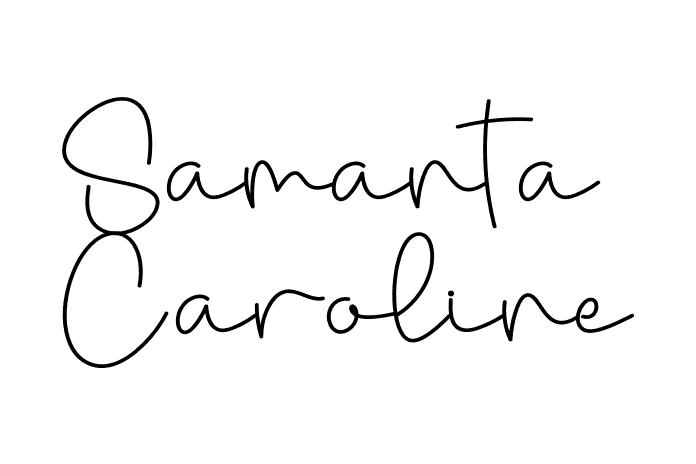
Yolanda
Yolanda is an elegant script typeface with a changing baseline, a smooth line, a modern feel, and a passion for depth.
It can be used for a variety of purposes such as headlines, weddings,  signatures, logos,  t-shirts.
Font name Yolanda
Font designer Letterara 2019
Font Family Yolanda
Typeface classification Script